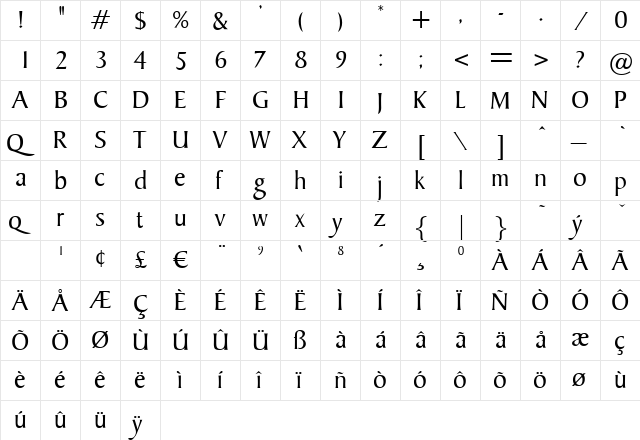
K690-Flare Regular
Design Context for K690-Flare Typeface
K690-Flare takes a measured approach to typography — its balanced proportions and neutral character make it a reliable workhorse for both digital and print work.